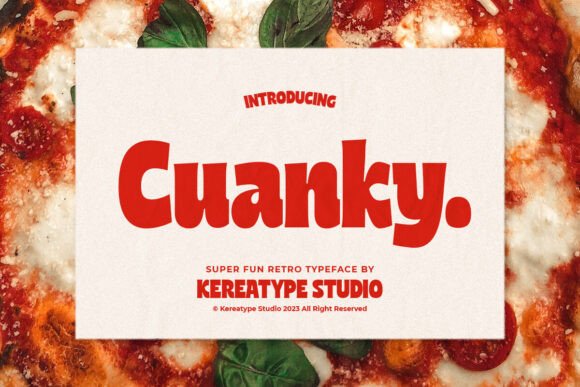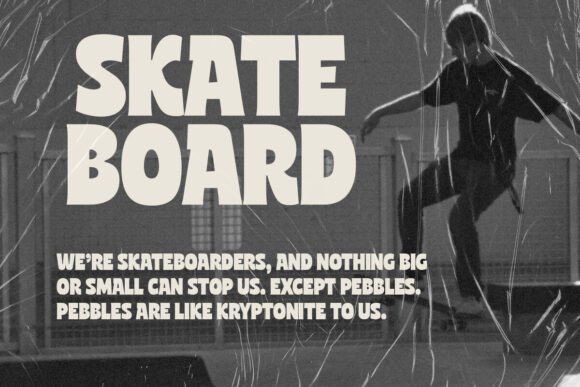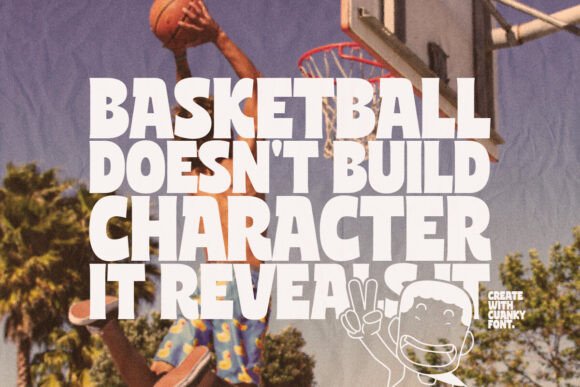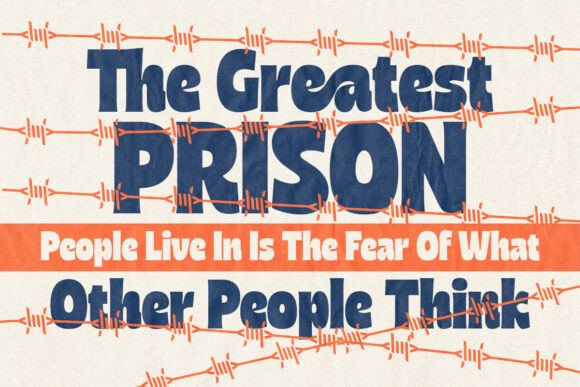
Cuanky Font: Bold Retro Display Font for Playful Branding!
About the Cuanky Font
We are excited to introduce Cuanky Font, a must-have typeface for any serious designer. Cuanky is a super fun, chunky retro display font that brings warmth, friendliness, and a whole lot of personality to your creative projects. Inspired by playful 70s and 80s design aesthetics, this typeface bursts with boldness, making it perfect for food branding, merchandise, packaging, and nostalgic visuals.
Its soft curves, thick forms, and slightly quirky character shapes give Cuanky a handcrafted and approachable feel. Whether you’re designing for skate culture, streetwear, indie food spots, or vintage-inspired campaigns, this font delivers an energetic punch with a nostalgic vibe.
Cuanky’s versatility shines in editorial layouts, social media graphics, advertising, product labels, and playful logos. It’s especially effective when paired with bold photography, grainy textures, or halftone overlays to amplify its retro pop appeal.
Take your designs on a flavorful retro ride with Cuanky, a font that’s bold, bouncy, and unapologetically fun.